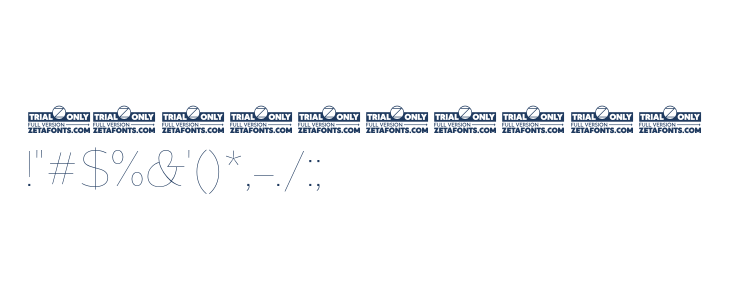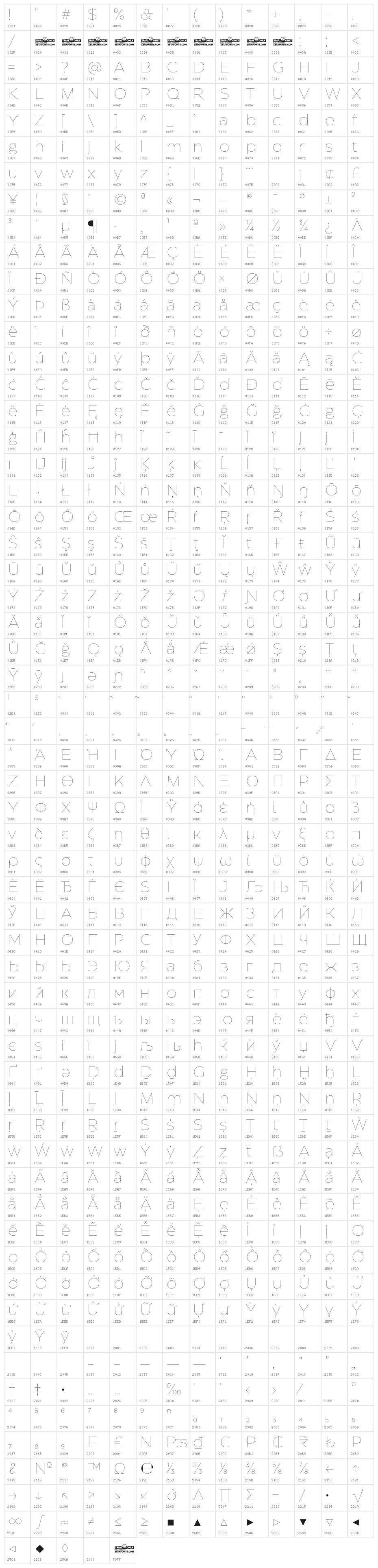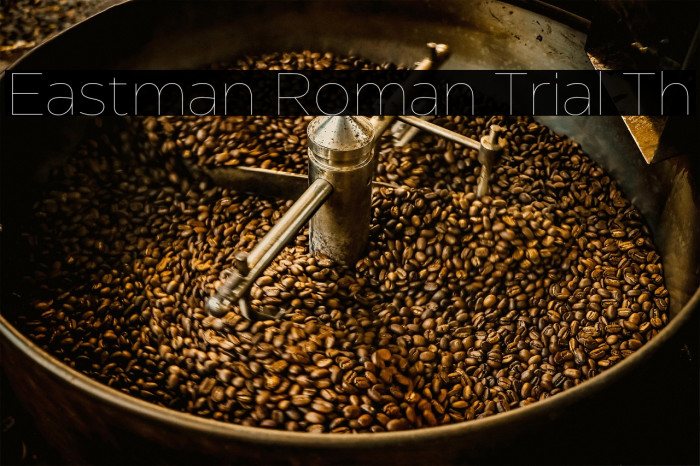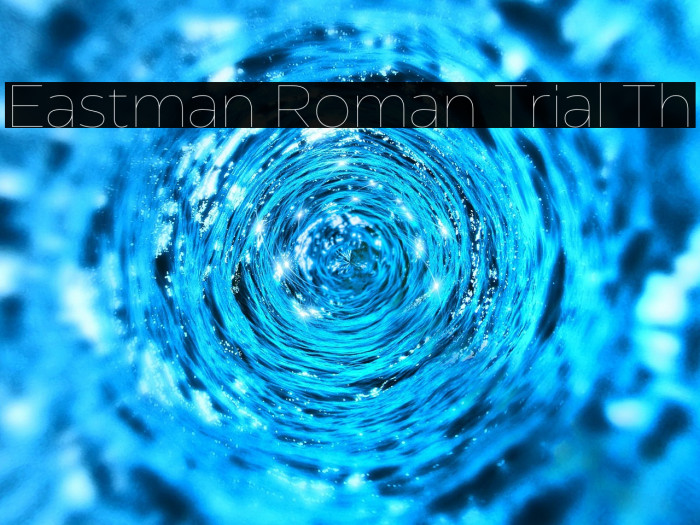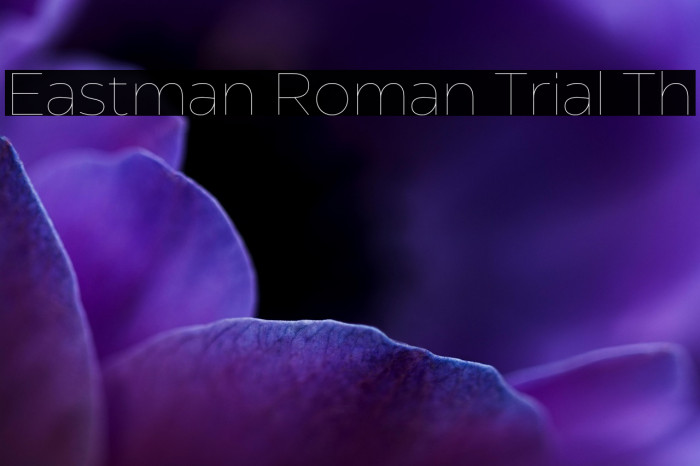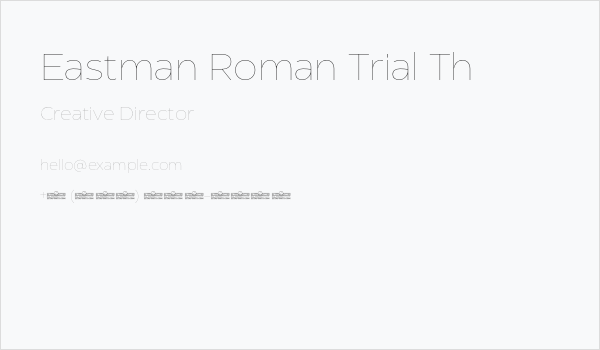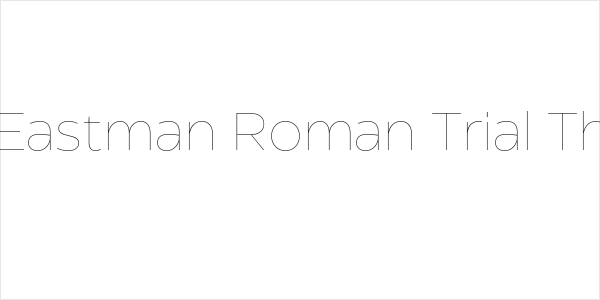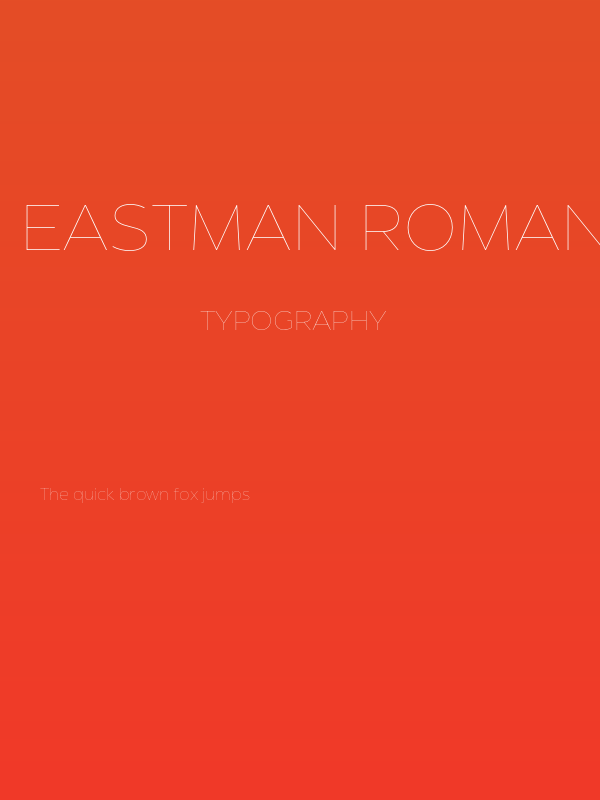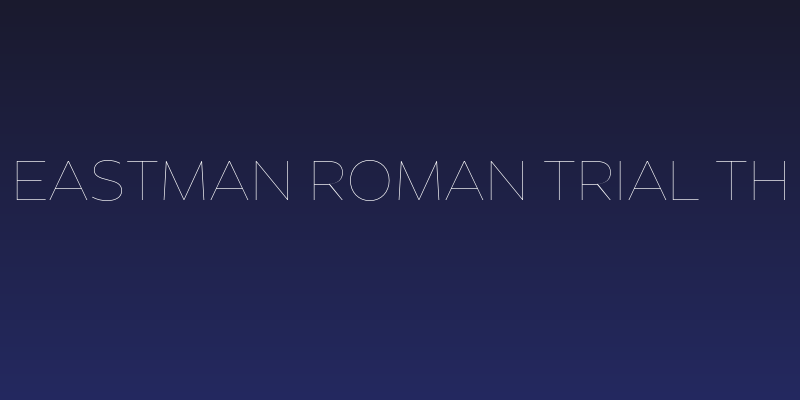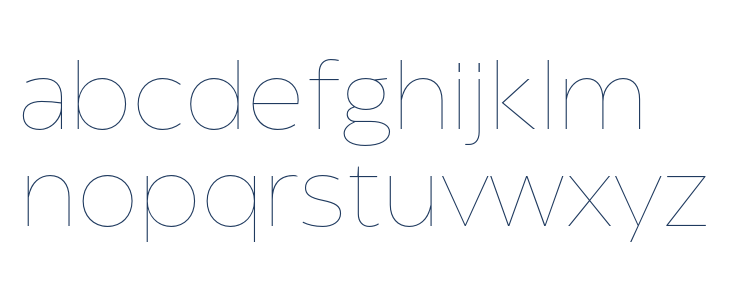
Eastman Roman Trial Th Font
Eastman Roman Trial Th Description
This font features a clean and minimalist design with thin, uniform lines that create a modern and elegant appearance. The characters are well-proportioned, with a geometric structure that emphasizes simplicity and clarity. The uppercase and lowercase letters maintain a consistent style, enhancing readability. The numerals and special characters complement the overall aesthetic, making it versatile for various applications. Its sleek design is ideal for projects that require a contemporary and sophisticated look.